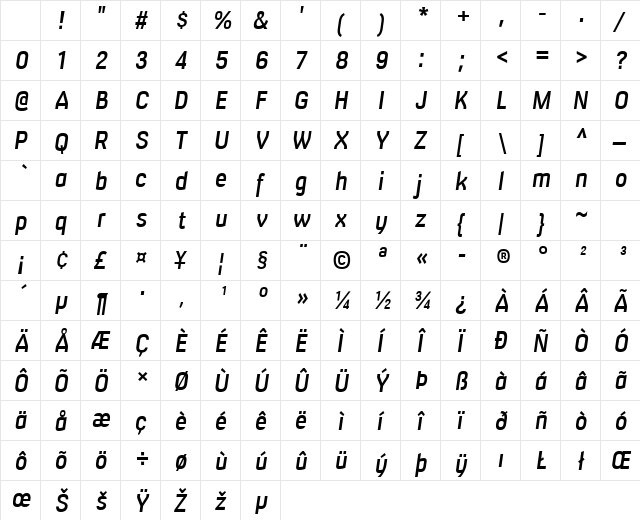
Milibus Sb is a composed and adaptable typeface that performs quietly and consistently across a wide range of design contexts. The slanted form adds forward momentum and visual energy.
Pro Tip: Use Milibus Sb for emphasis, pull quotes, and subheadings where its slanted energy can add rhythm to the layout.